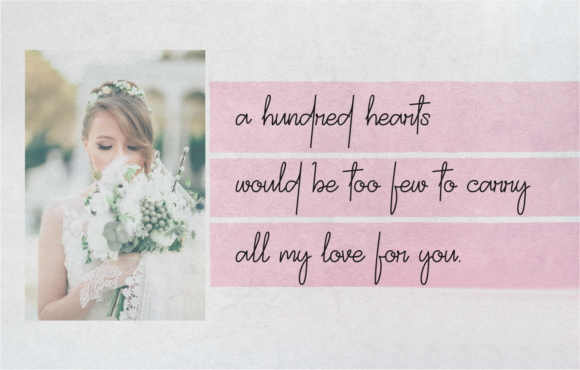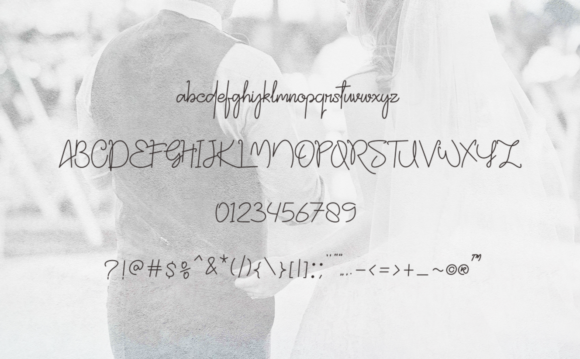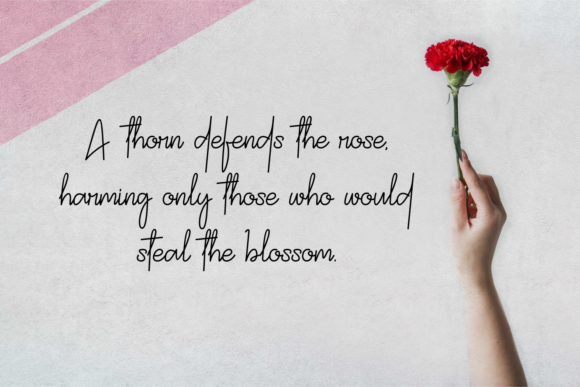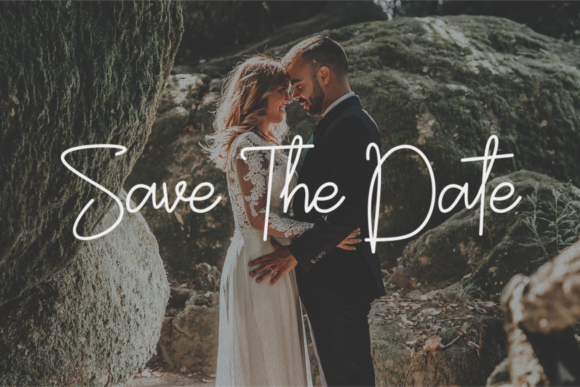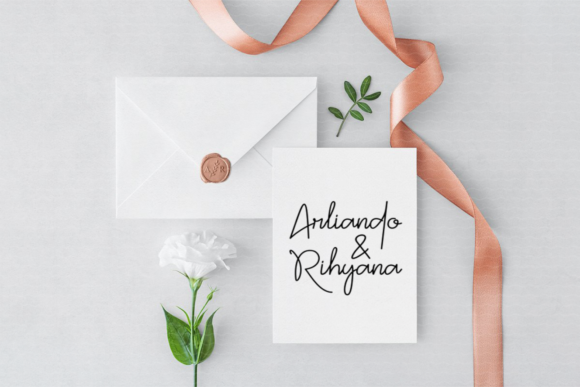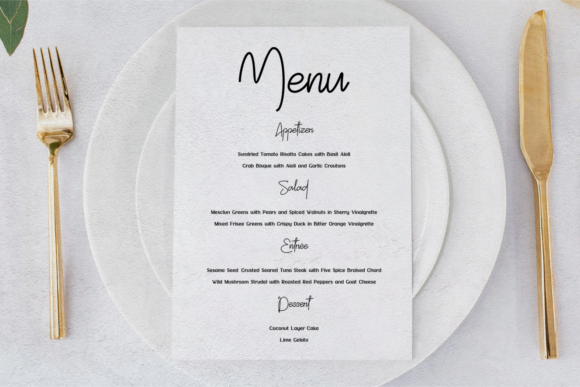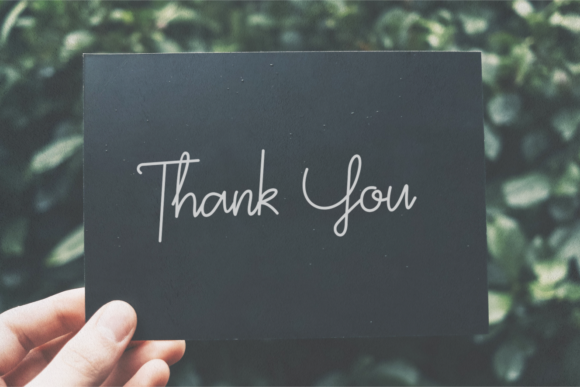
HomeScript FontsHayunikah Font Script Fonts Hayunikah Font FacebookXPinterestWhatsApp Hayunikah Font Poster 2 Hayunikah Font Poster 3 Hayunikah Font Poster 4 Hayunikah Font Poster 5 Hayunikah Font Poster 6 Hayunikah Font Poster 7 Hayunikah Font Poster 8 About Hayunikah Font Hayunikah is romantic script font inspired by weddings. Fall in love with its playful charm. DOWNLOAD ON CREATIVE FABRICAThis font is sold and delivered by Creative Fabrica. Font Canyon may earn a commission if you buy through this link. People also explored Adila Font Alexandria Font Callmounth Font Refalina Font Sieber & Satire Font Simple Gifted Font Wonderful Font Quick Dragon Font Moonlight Font 353 0 TagsHayunikah Font Previous articleHector Barbossa FontNext articleSheppaloe Font LEAVE A REPLY Cancel reply Comment: Please enter your comment! Name:* Please enter your name here Email:* You have entered an incorrect email address! Please enter your email address here Website: Save my name, email, and website in this browser for the next time I comment. Personal Use Free Rhetorical Personal Use Free Read more about this font Doriath Personal Use Free Read more about this font Bettari Personal Use Free Read more about this font Larosh Sithal Duo Personal Use Free Read more about this font BLOG Best Fonts for YouTube Videos: Make Your Thumbnails Stand Out Best Fonts for YouTube Videos: Make Your Thumbnails Stand Out Choosing the right font can make a massive difference in how your YouTube videos perform.... Top 10 Handwritten Fonts That Elevate Your Designs The 10 Best Handwriting Fonts to Add Personality to Your Designs How to Install and Use Fonts on Windows, macOS, and Web Projects